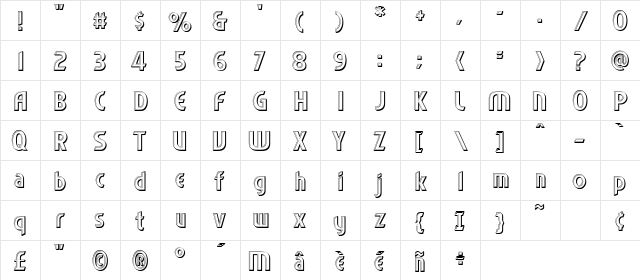
CCEuphoria Outline
Design Context for CCEuphoria Typeface
CCEuphoria is built around its visual character rather than neutral utility — its distinctive forms are designed to make an impression at display sizes.
Font Pairing: Pair with a clean neutral sans-serif for body copy to let CCEuphoria's character lead without overwhelming the composition.
Pro Tip: Use CCEuphoria exclusively at display sizes — it was designed to be seen, not read at length. Let a neutral companion handle body copy.